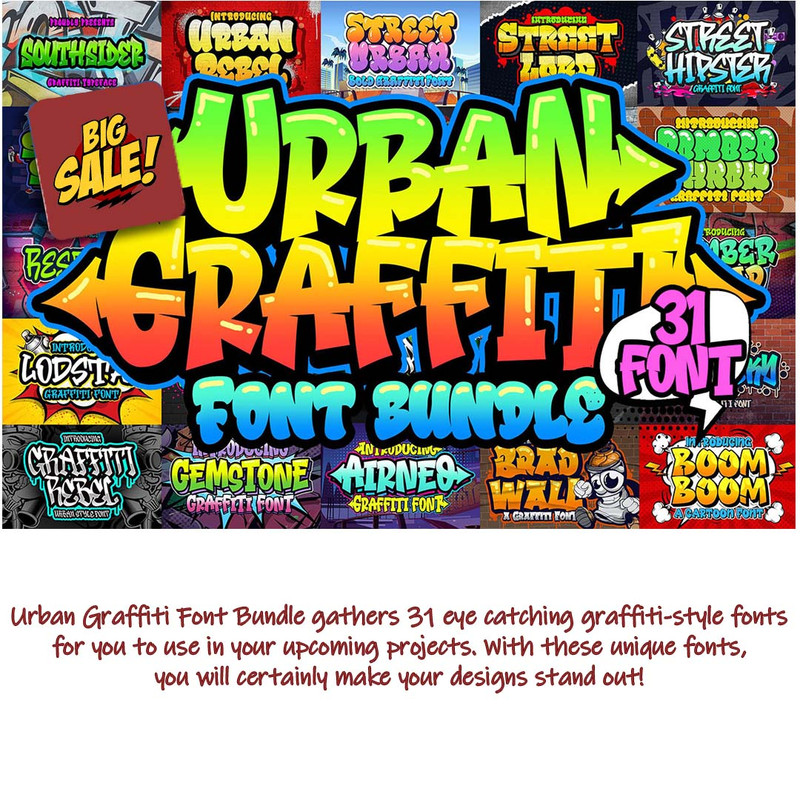
Introducing the Urban Graffiti Font Bundle, a curated collection of 31 attention-grabbing fonts in a captivating graffiti-style. Enhance your upcoming projects with these one-of-a-kind fonts, ensuring that your designs truly stand out!
This versatile font bundle is ideal for a range of applications including street style, sports themes, caps, t-shirts, websites, hoodies, clothing, headlines, branding, as well as various print and digital media.